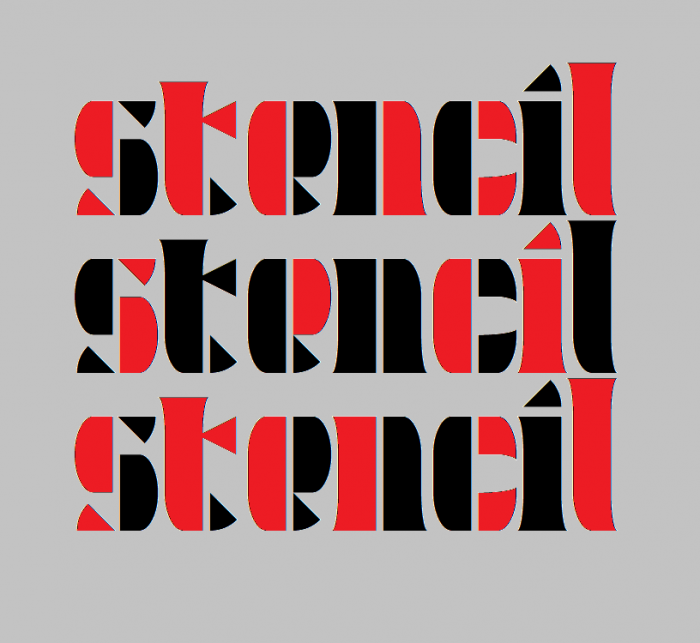
stencil.
Damn this is amazing!! I love it! Are the dots of i and j the new pizza slice brick? Cool
Yes. Thank you:)
This is definitely to my liking. Beautiful stencil!
Awesome mate!
I'm curious about the name though, since in Dutch it means coffee
Yes, it is Dutch. I can not speak Dutch, but I like it.